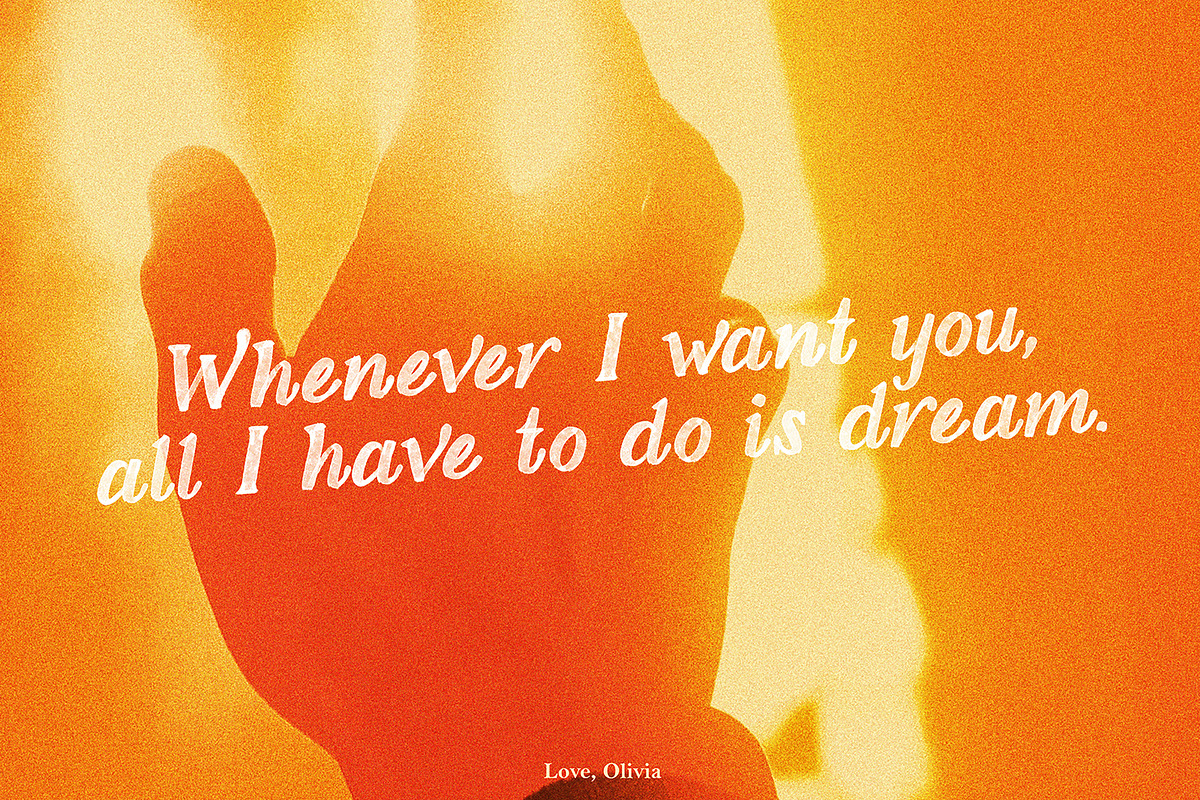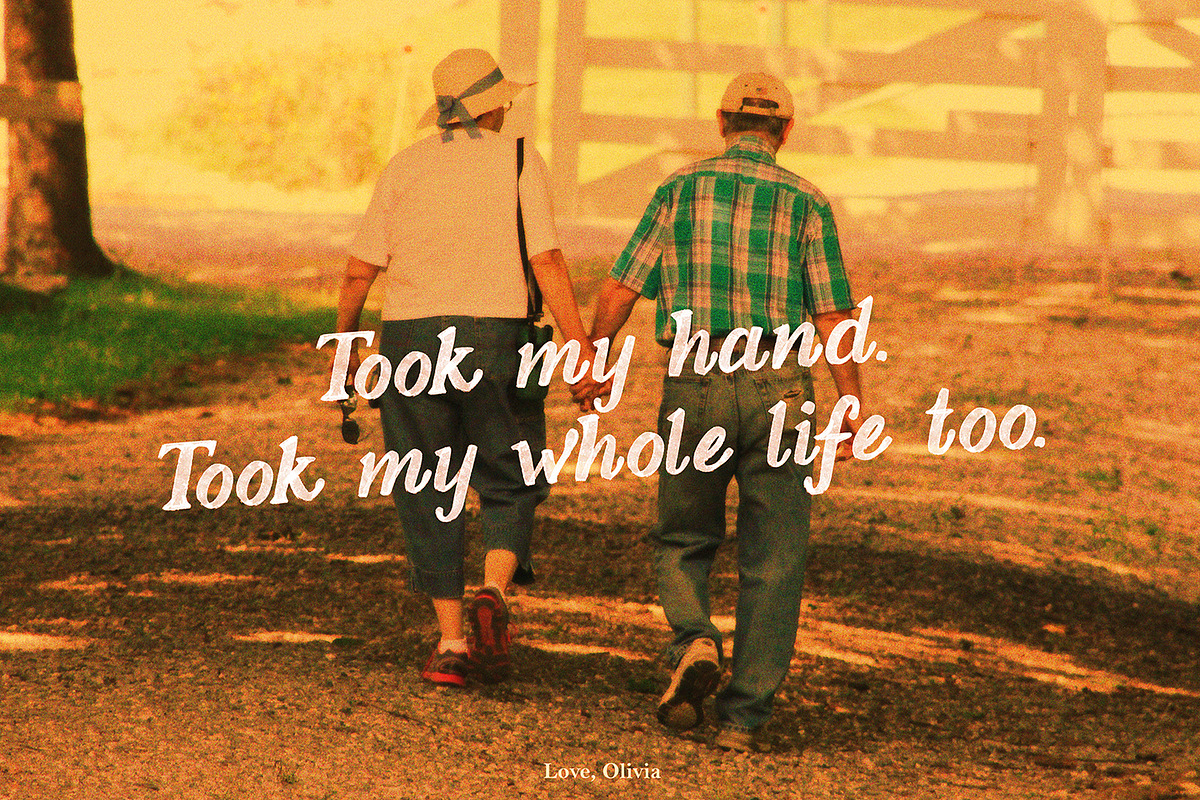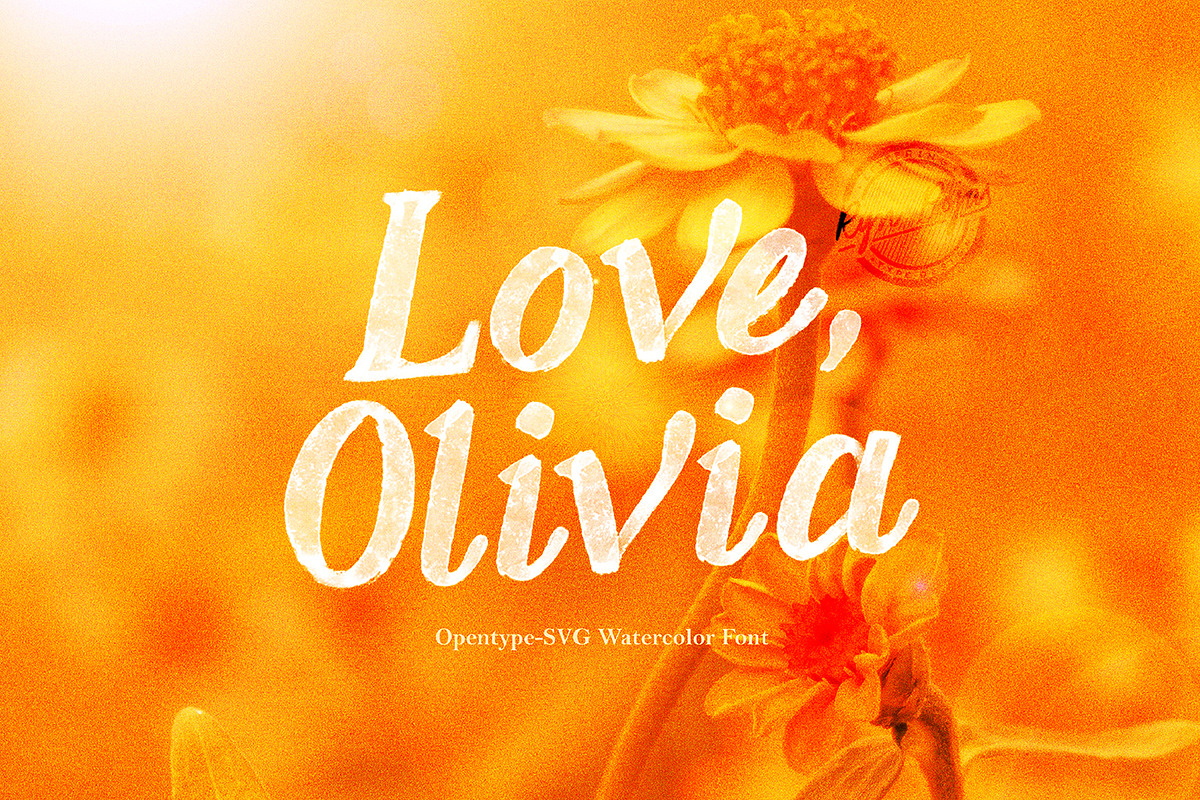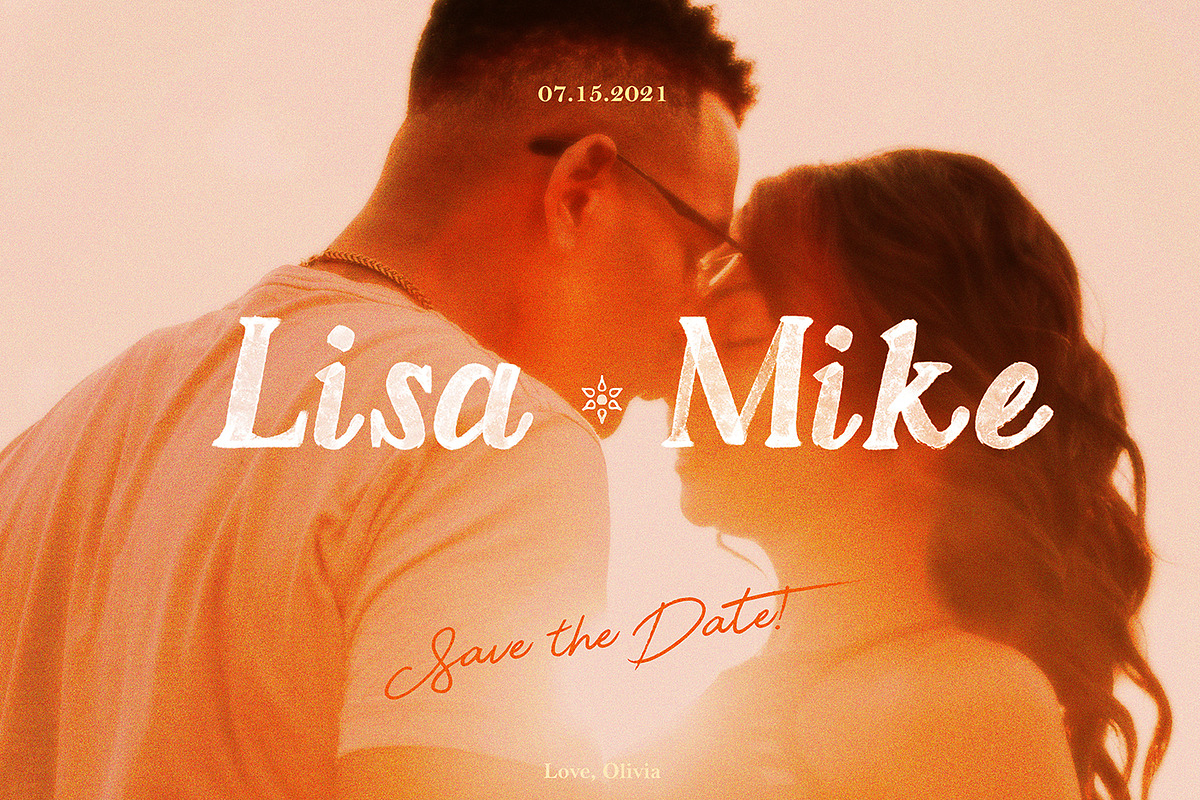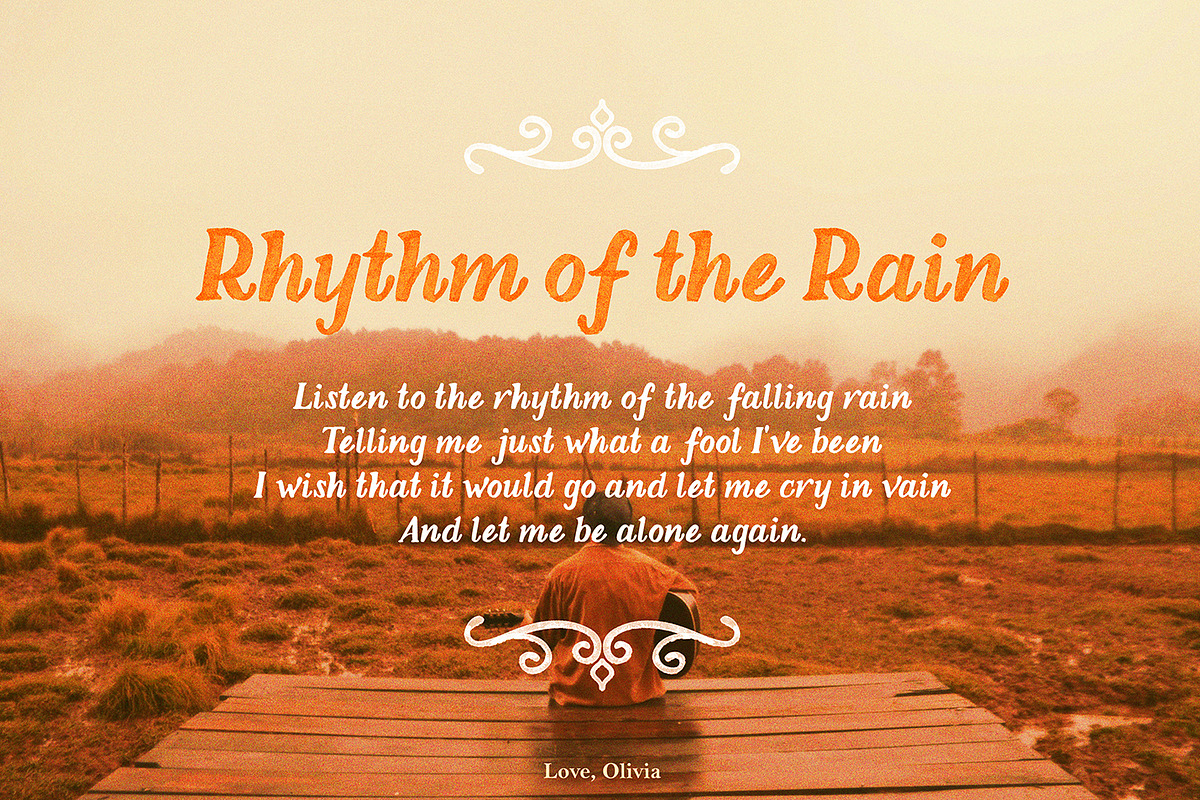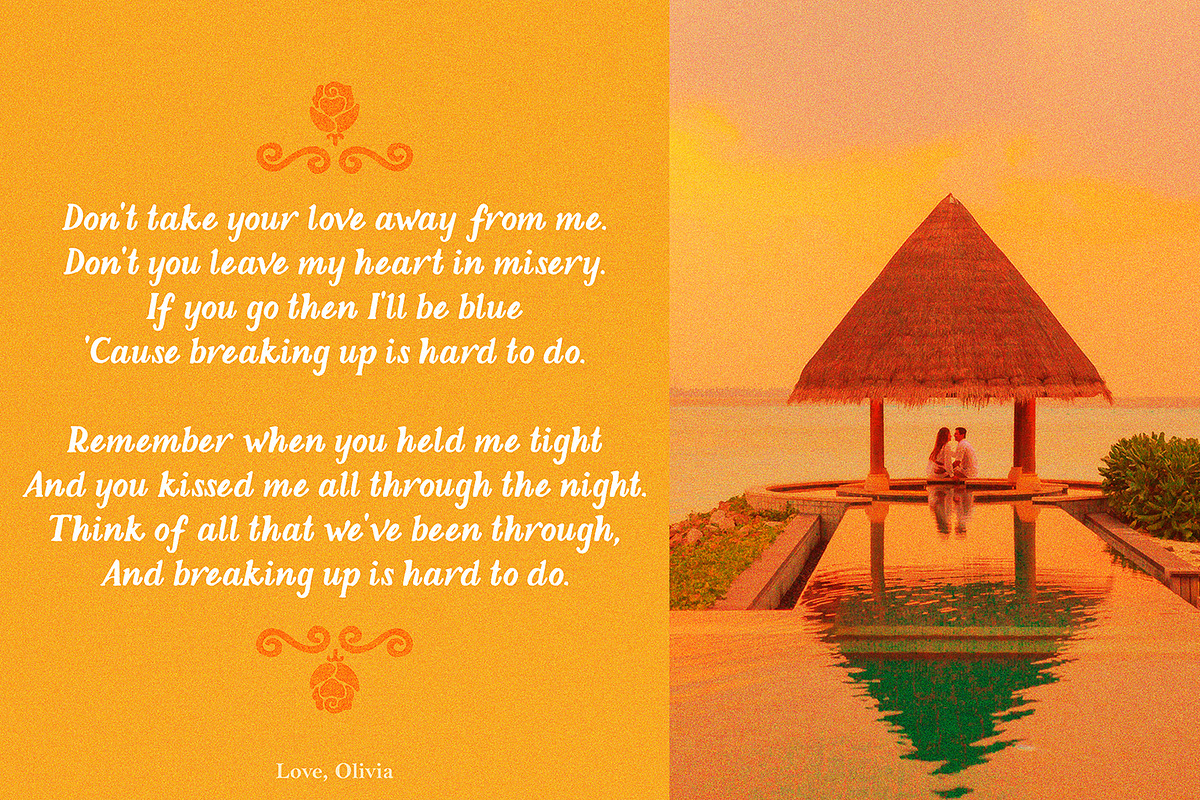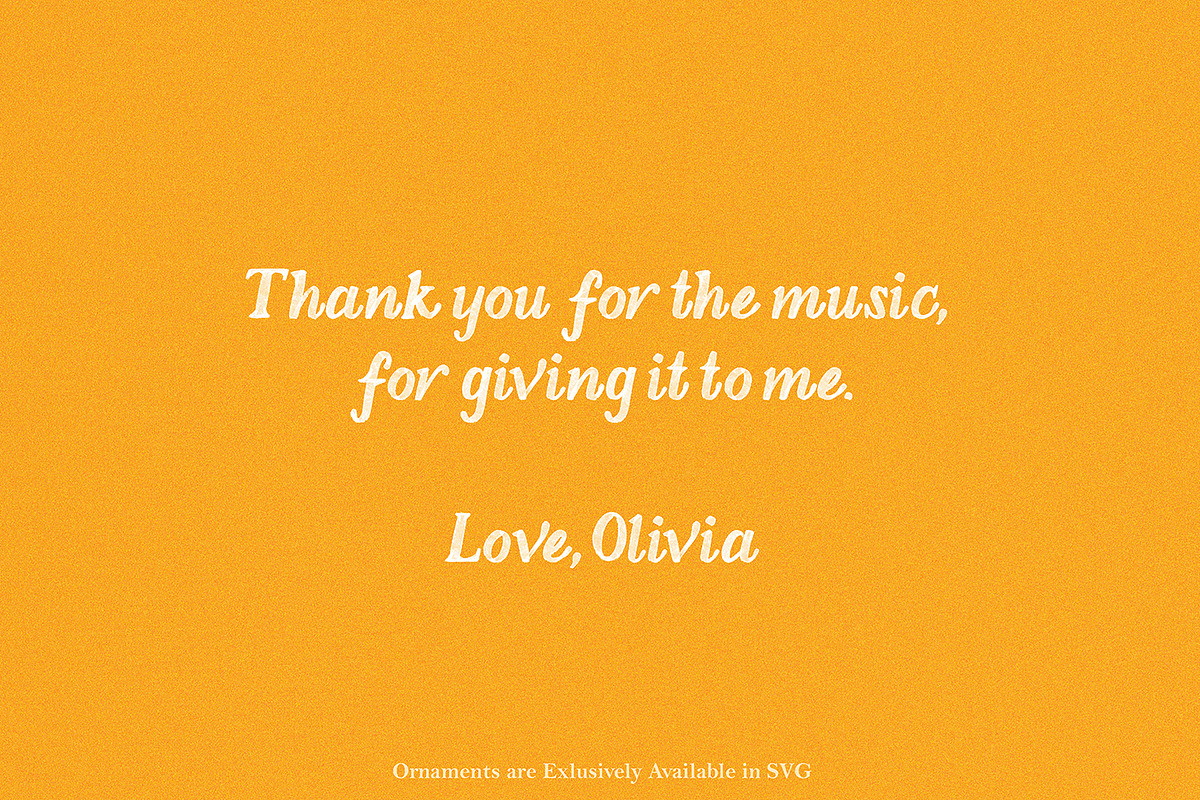
Love, Olivia | Vintage SVG Font
Love, Olivia!
Love, Olivia is heavily inspired by classic fonts. It is handwritten with watercolor to give the SVG font an authentic watercolor-to-paper texture. Love, Olivia includes bonus ornaments to complement the modern classic feel of the font. The ornaments are available in the SVG font. The font is a perfect choice for designs with classic themes, vintage concepts, or monochromatic projects. The weight of the font is also ideal for banners, videos, typography designs, and so much more!